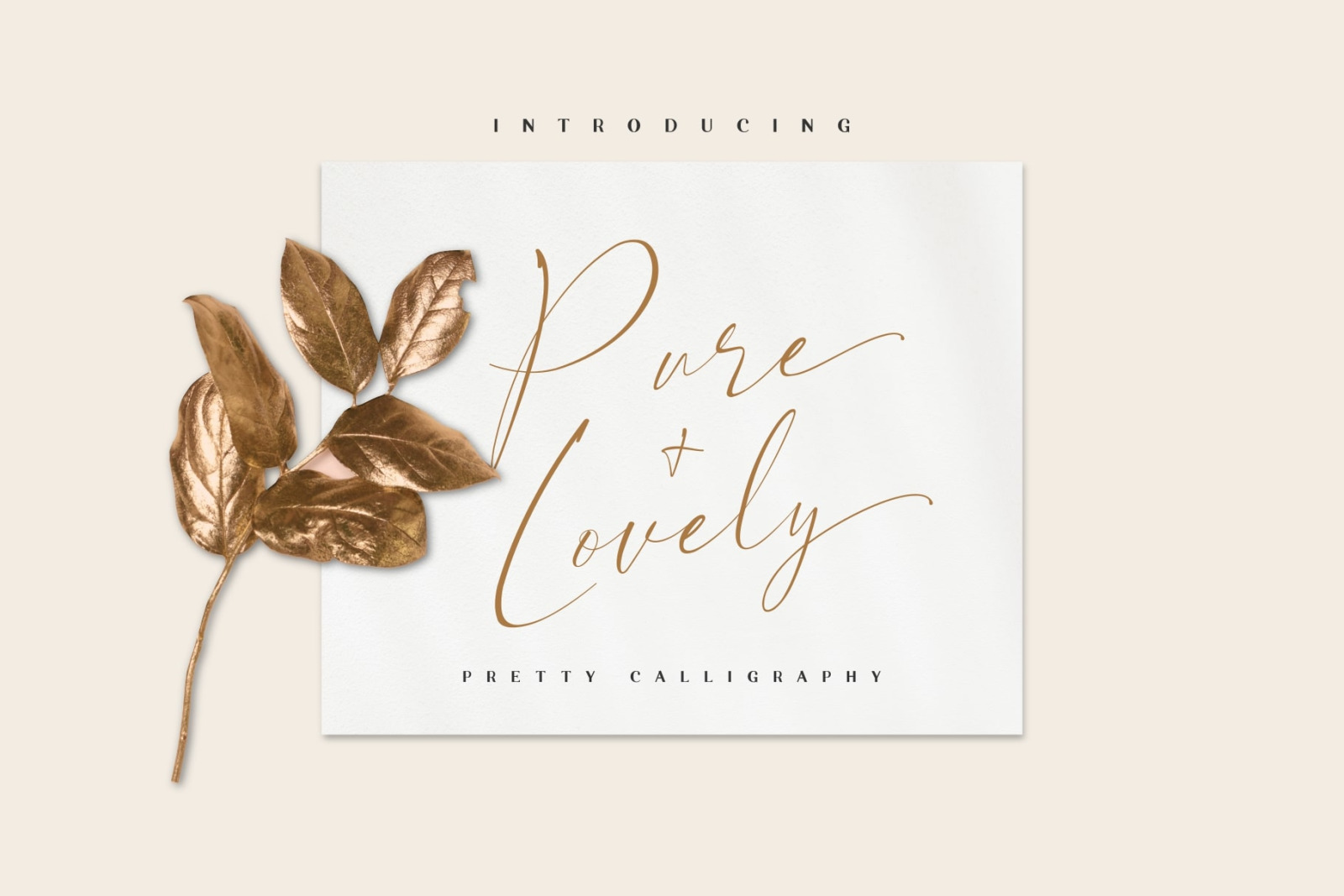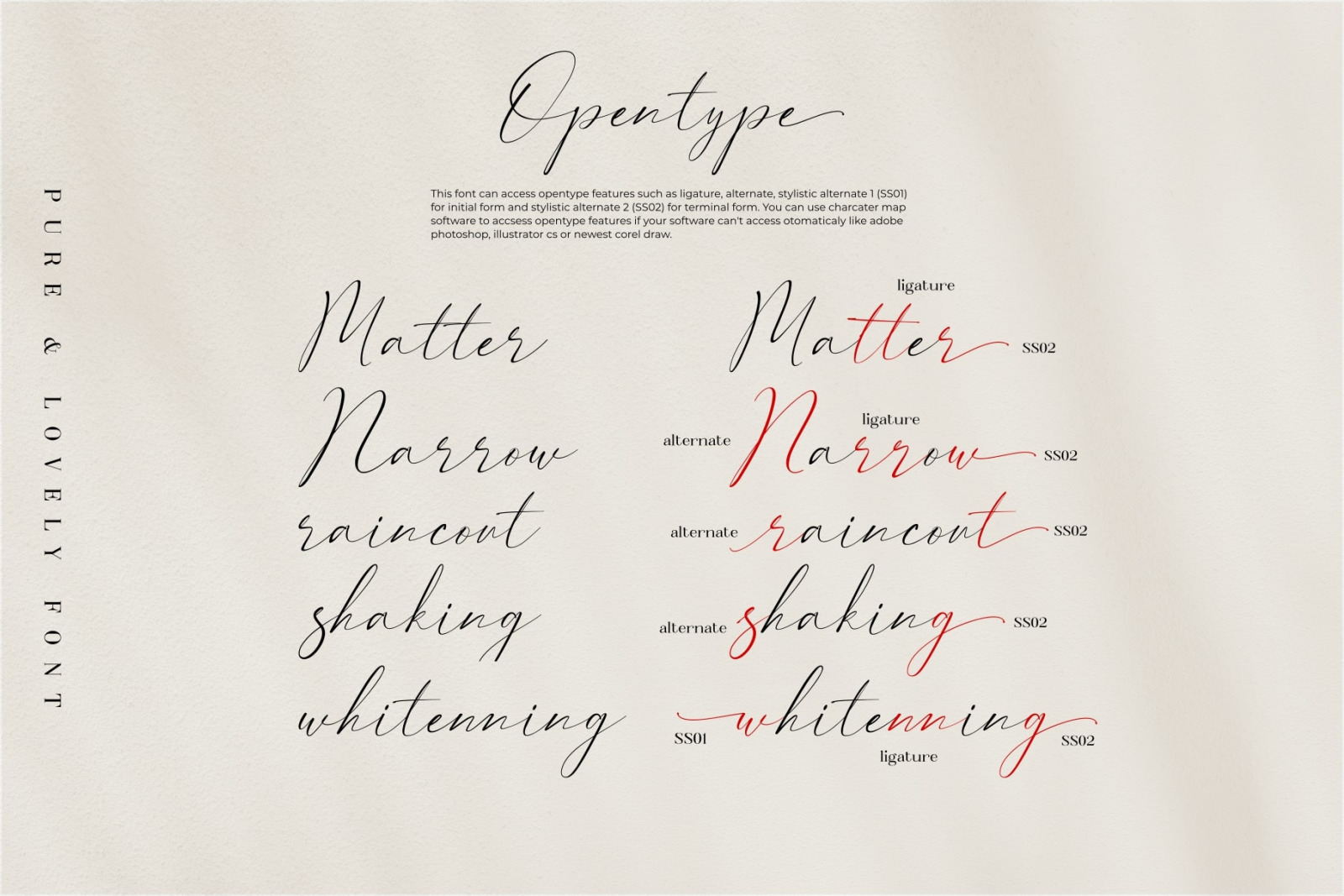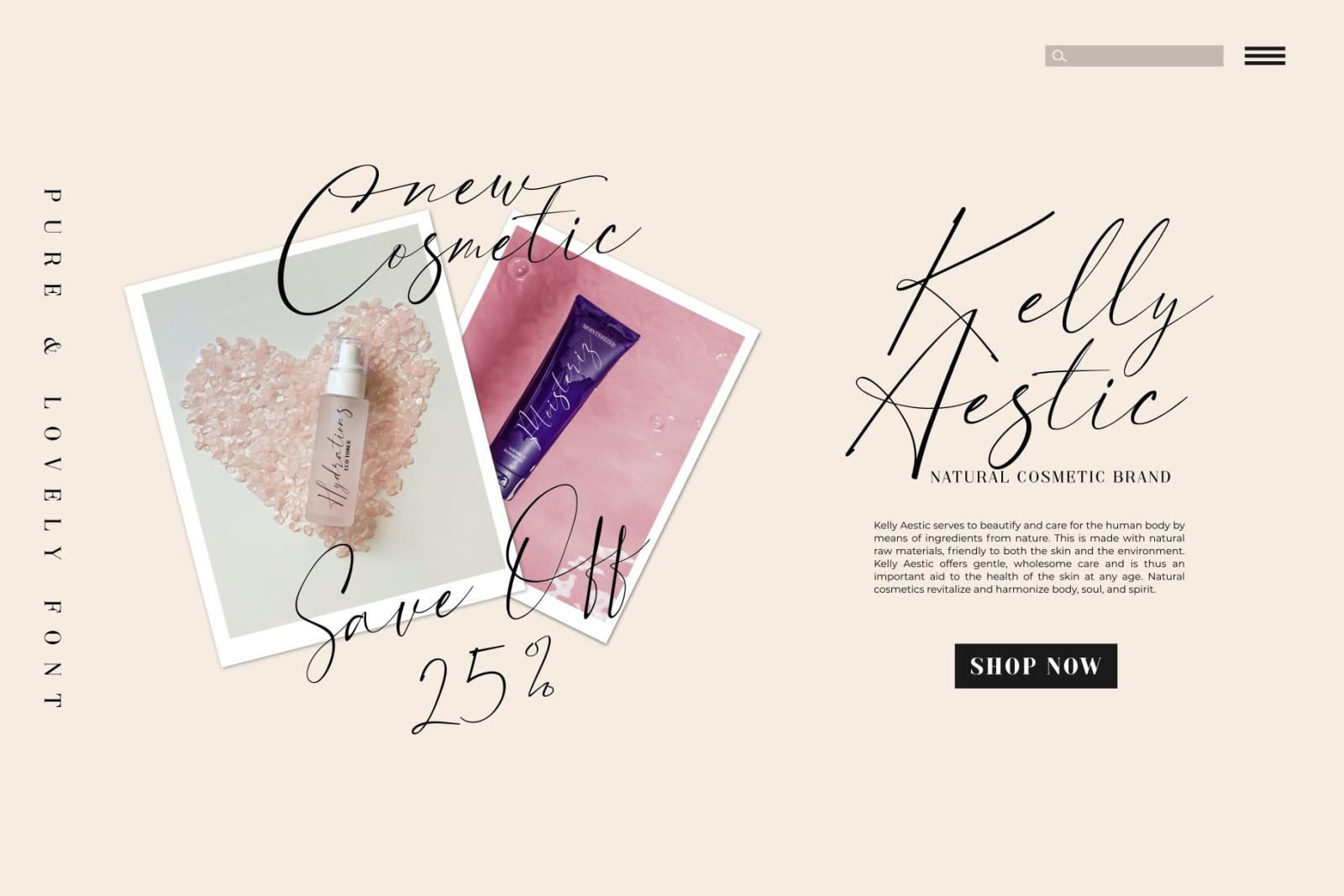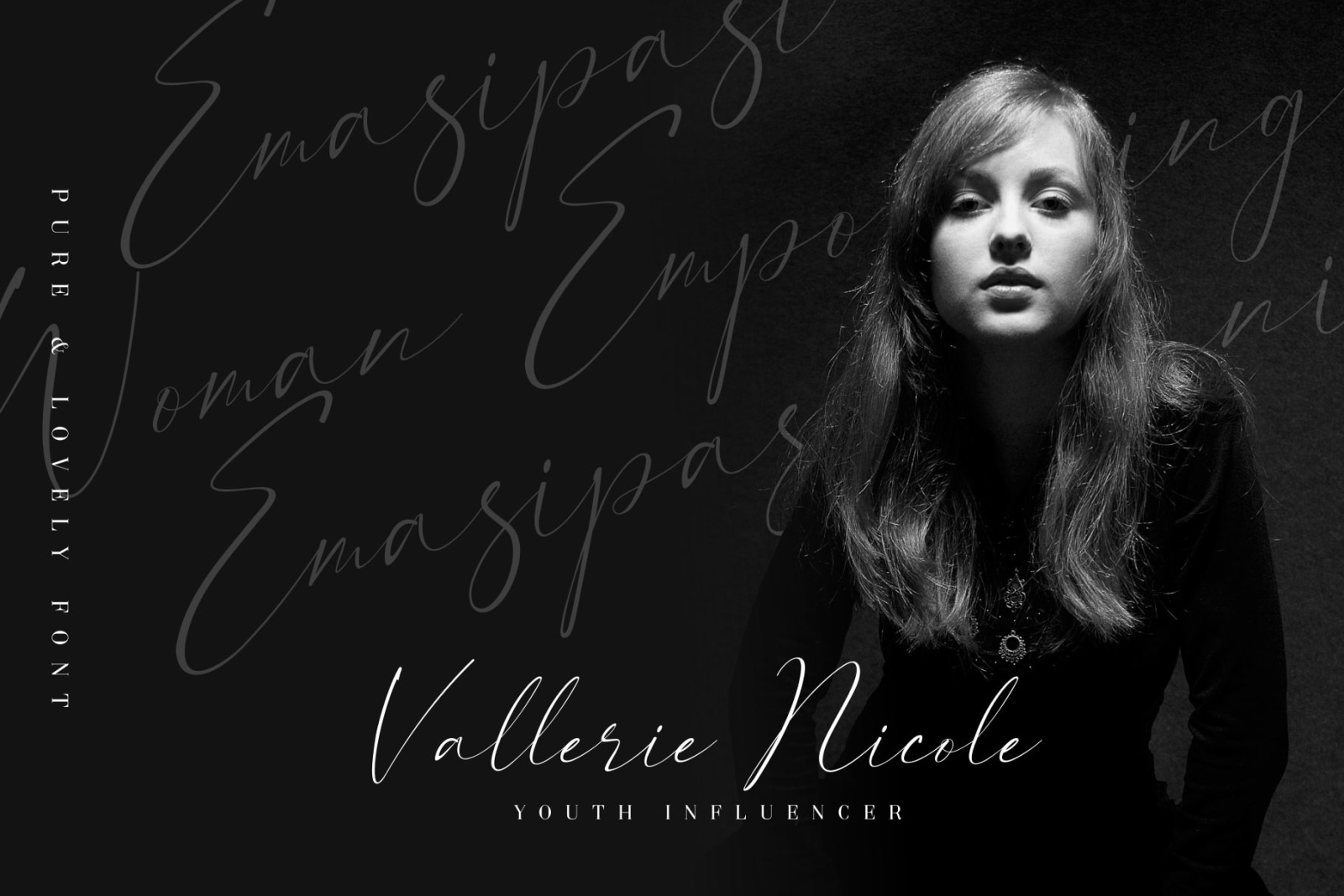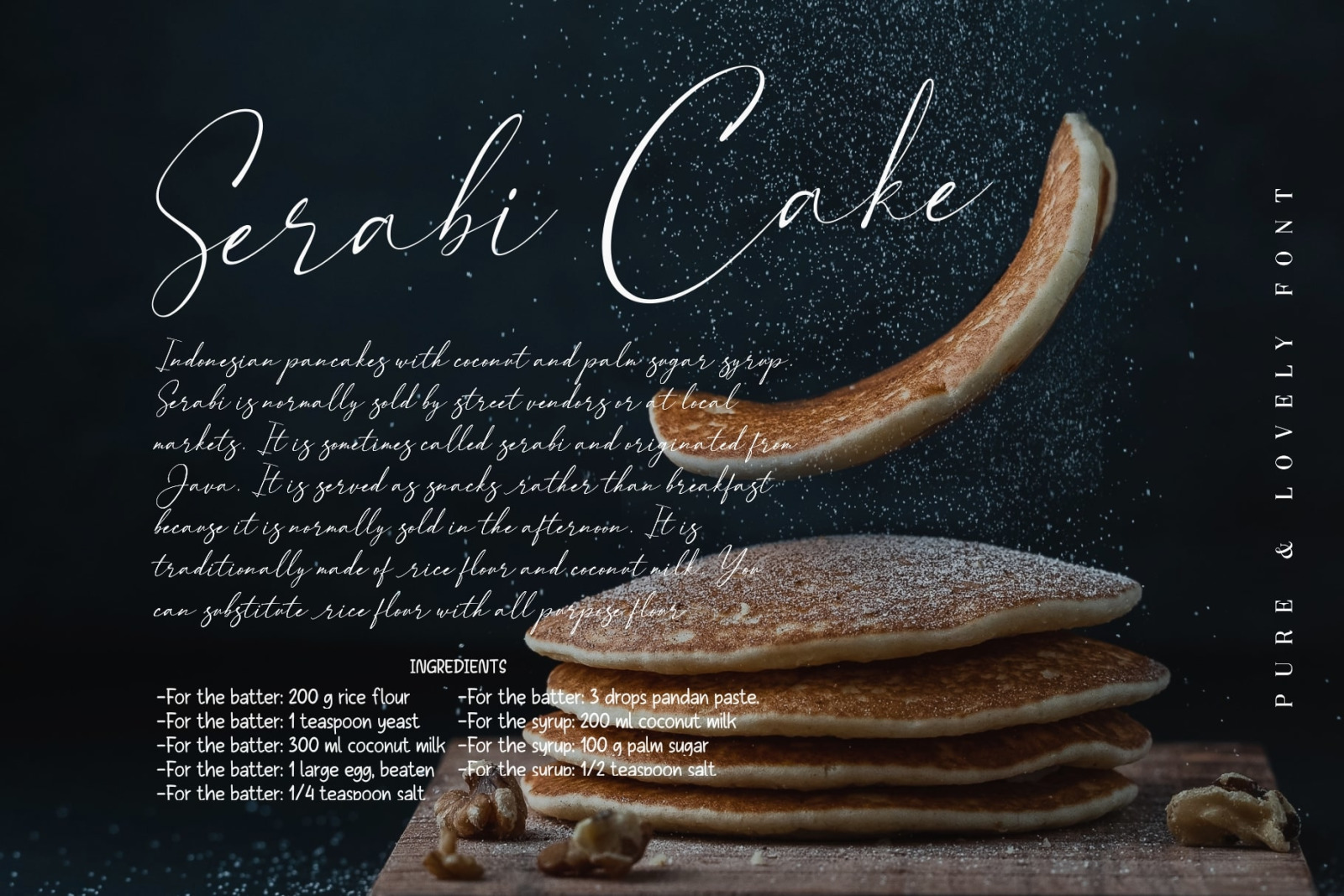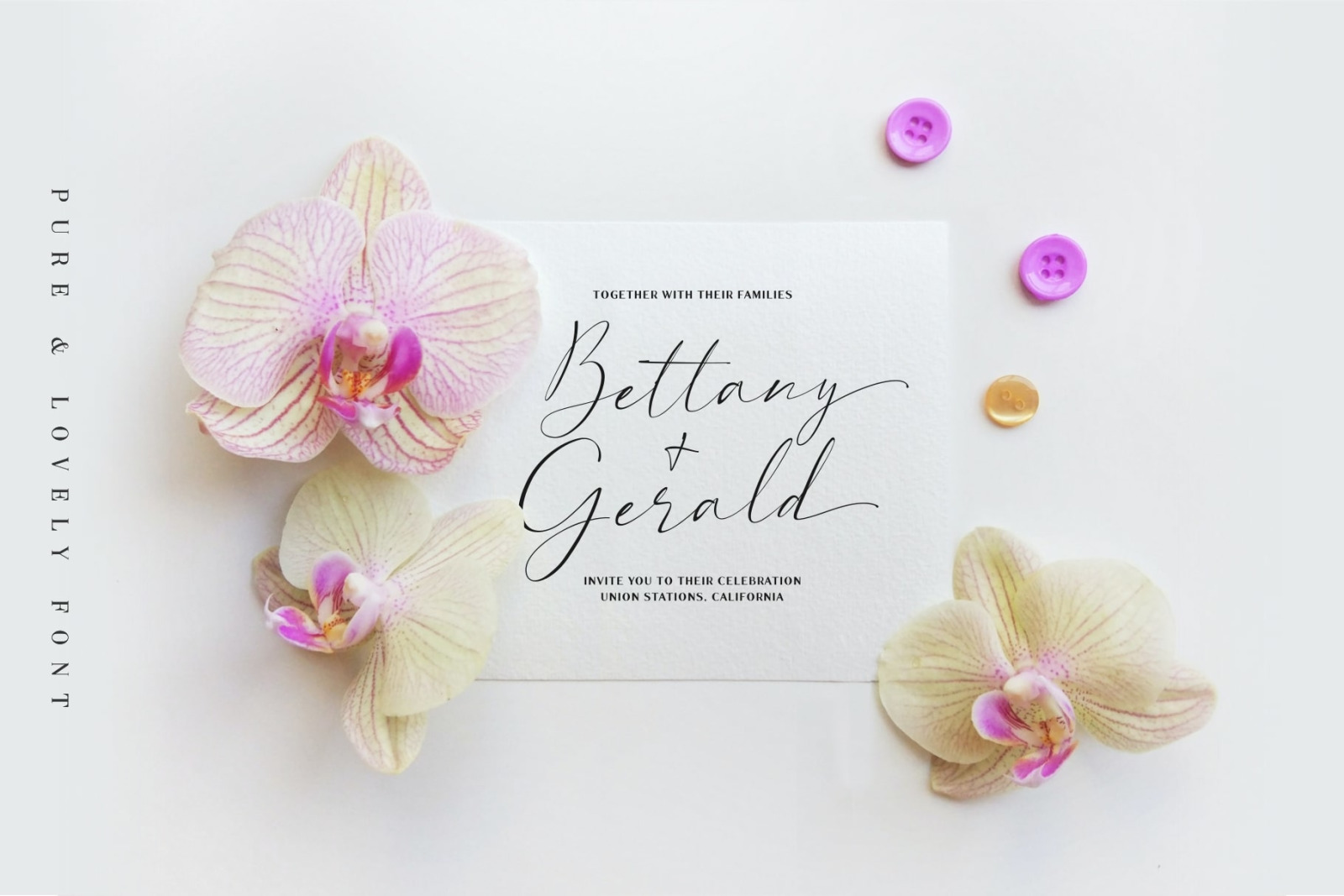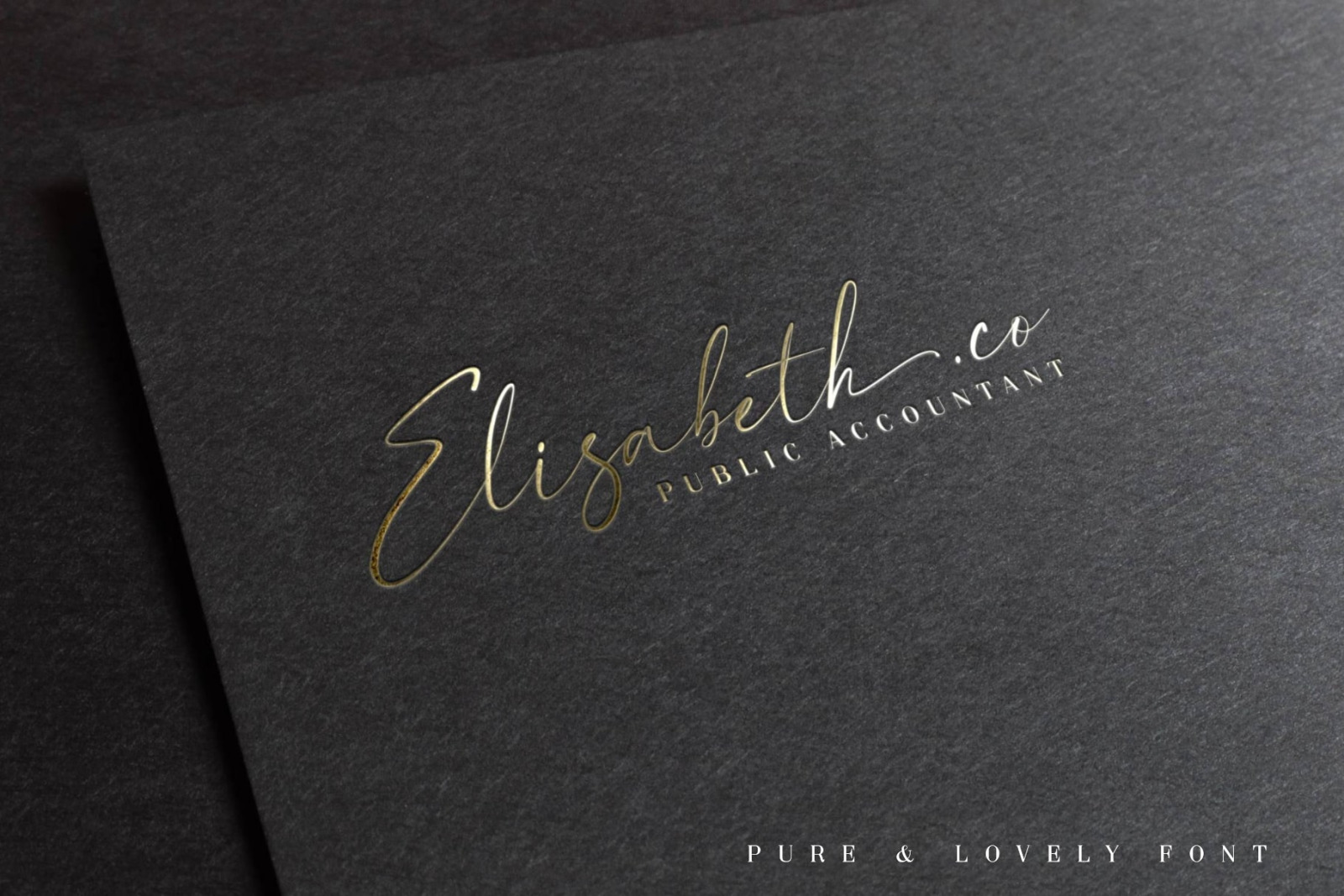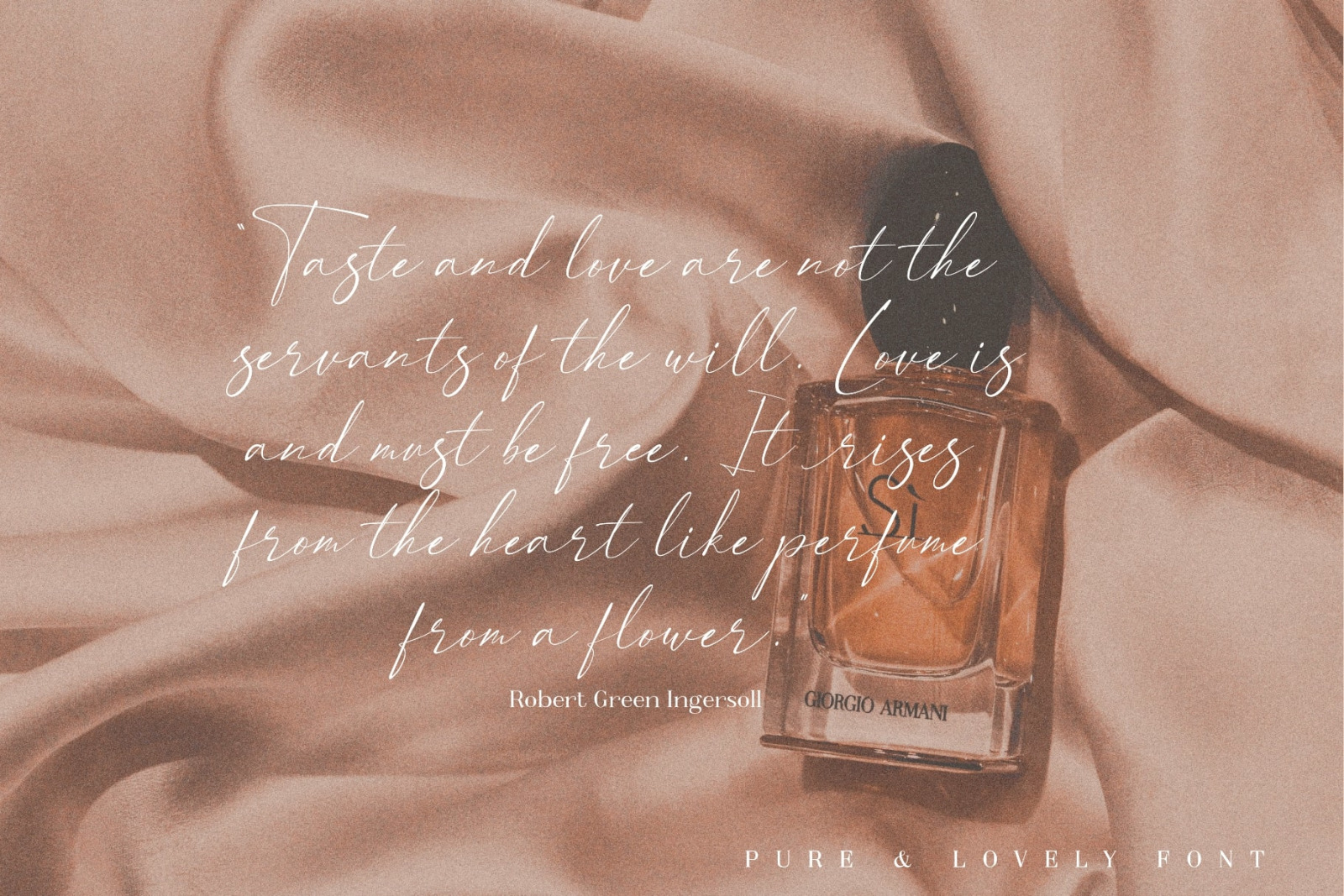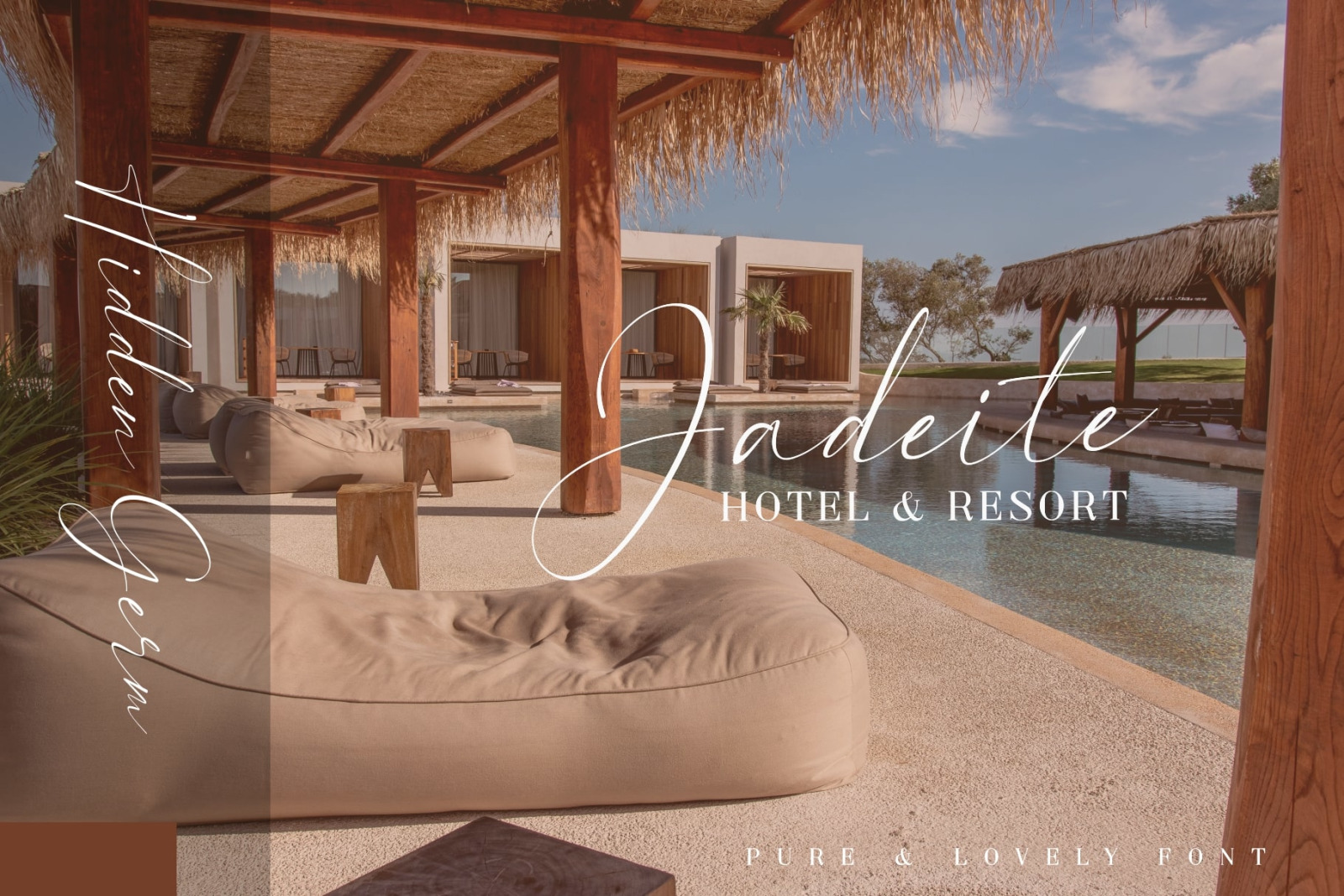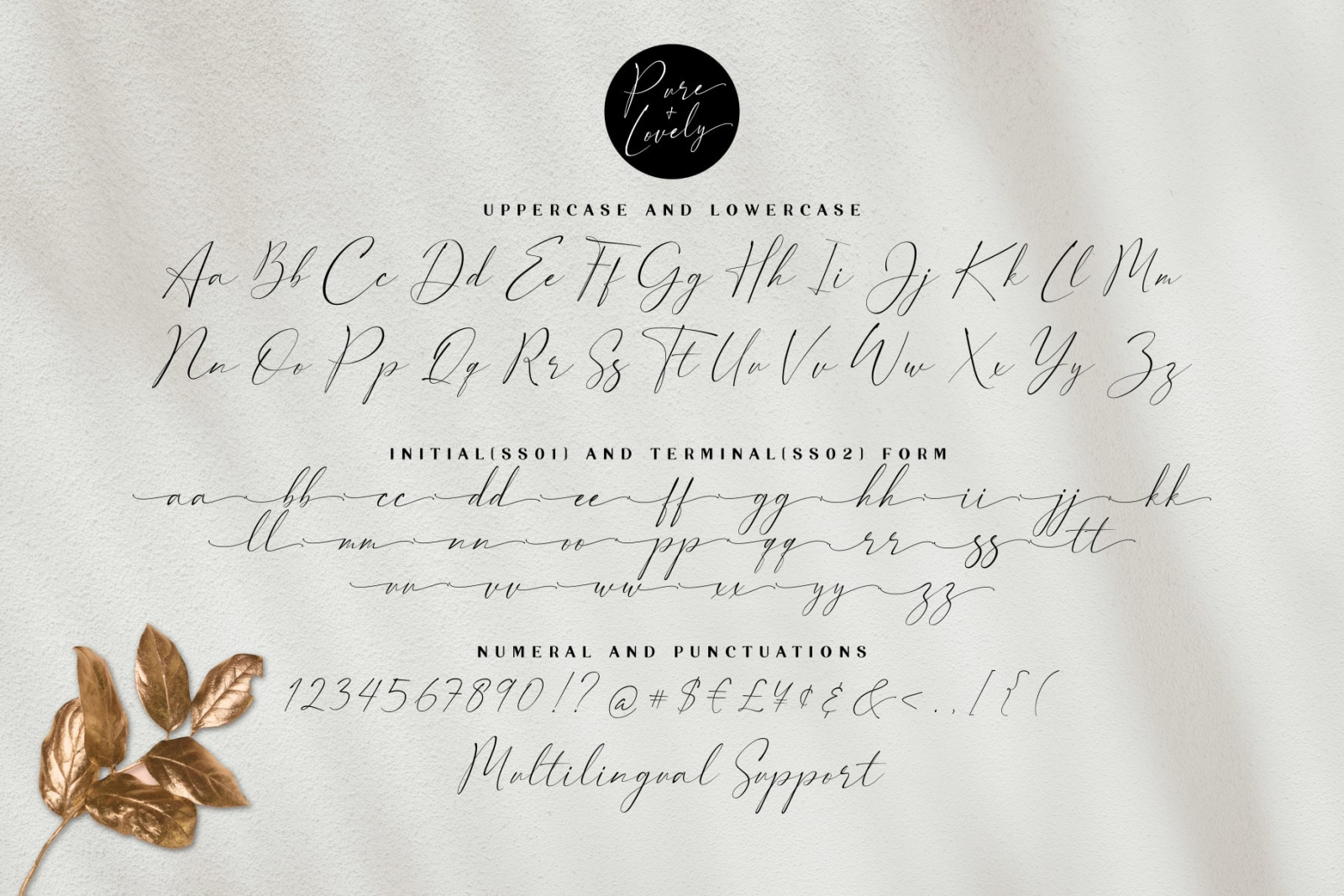
Pure & Lovely - Pretty calligraphy font
Introducing Pure and Lovely is pretty calligraphy font, this font is inspired by an organic handwritten. Pure and Lovely font has OpenType features such as ligature, alternate, stylistic alternate 1 (SS01) for initial or beginning swash, and stylistic alternate 2 (SS02) for the terminal form or ending swash, you can customize to make more pretty and elegant looks. Let's use this font in your project design for logo, branding, invitations, greeting card, headline, title, magazine, signature and etc.